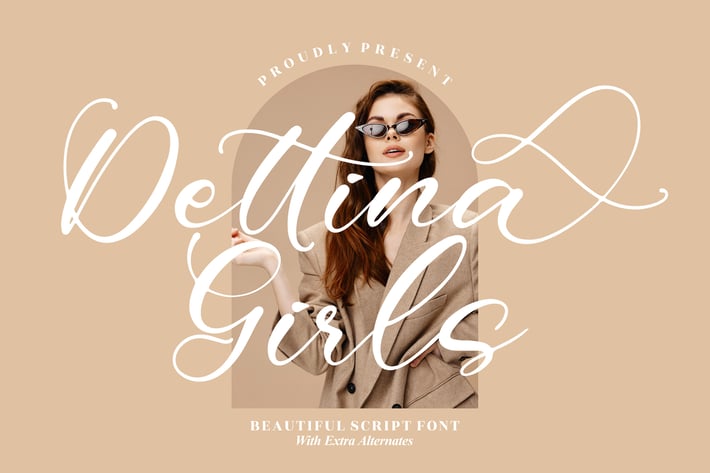
Dettina Girls Script Font
Dettina Girls is a beautiful modern script font designed to bring elegance, charm, and a luxurious handwritten feel to any creative project. With its flowing curves, graceful loops, and stylish feminine energy, this typeface adds a refined personal touch that instantly elevates branding and visual storytelling.
Modern handwritten script style
Smooth, elegant curves with feminine detailing
Beautiful alternates for decorative lettering
Organic, natural handwriting flow
Great for both digital and print applications
Fashion, beauty, and boutique branding
Wedding invitations & romantic stationery
Elegant logos & personal signatures
Lifestyle social media posts & quote designs
Product packaging with a feminine touch
Photography branding
Greeting cards & handwritten-style projects
Minimalist luxury branding visuals
Soft, elegant, and beautifully expressive — Dettina Girls brings a modern handwritten glow to every design.*